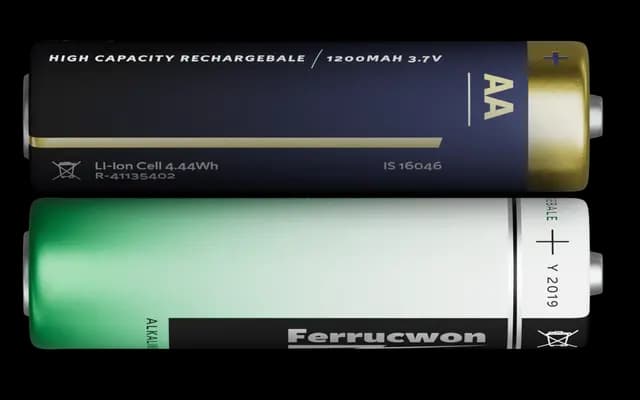
Kit
Darden Studio · Eben Sorkin, Onur Yazıcıgil · 2023
A humanist sans and rounded sans pairing by Eben Sorkin and Onur Yazıcıgil, spanning eight weights with italics across two subfamilies.
Released in 2023, Kit comes in two subfamilies — Kit Sans and Kit Rounded — each running from ExtraLight to Black with matching italics across 32 styles. The design has open, gestural drawing that aims to bring energy to a category often defined by neutrality. Suited to branding, editorial and UI work where a humanist sans needs warmth without becoming informal.
Darden Studio classify Kit as a low-contrast humanist sans and modern rounded sans, with gestural drawing and open apertures typical of the humanist tradition.